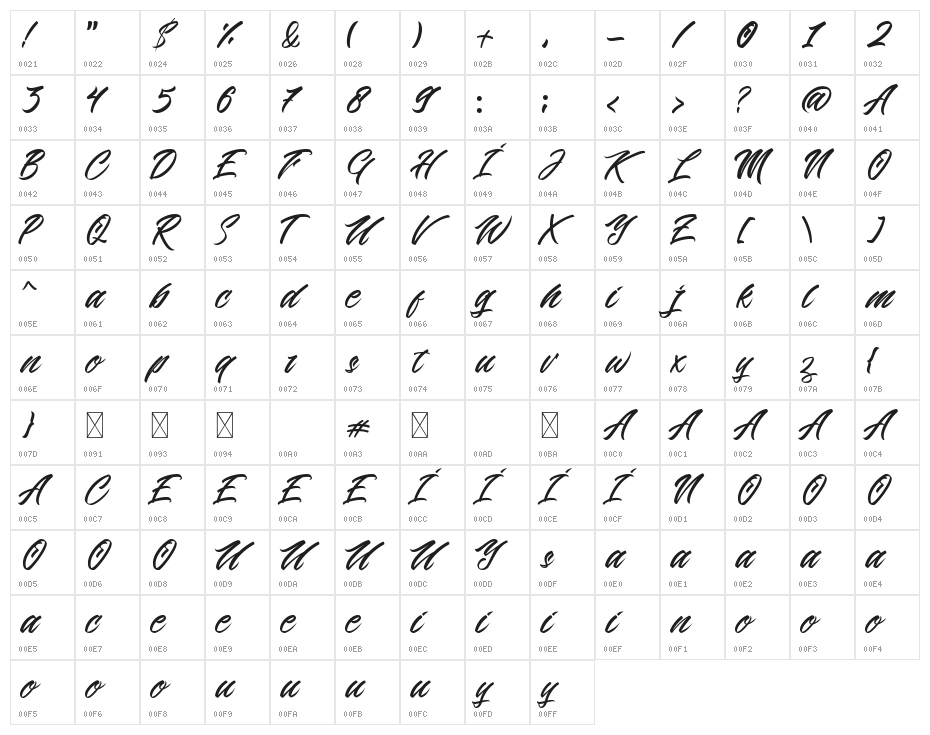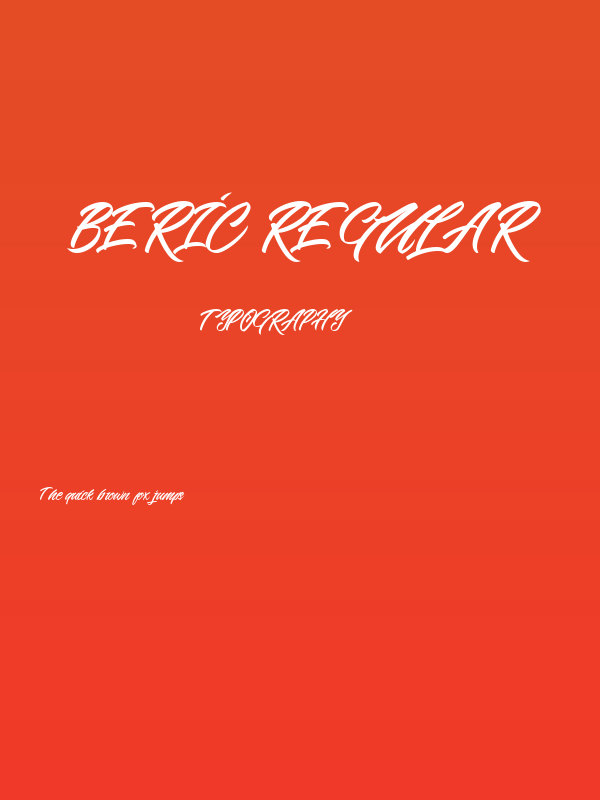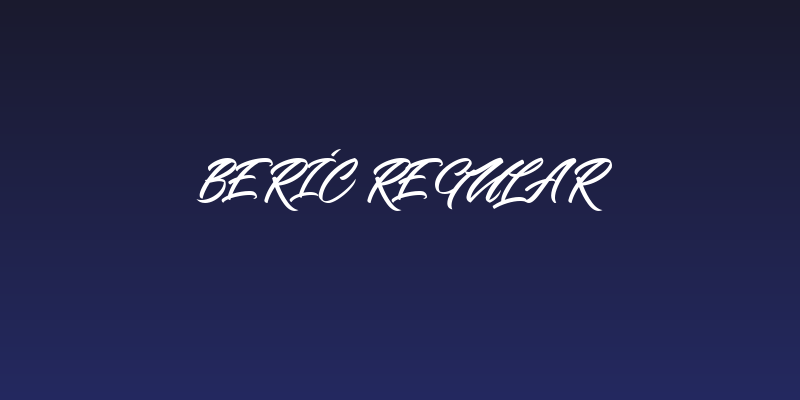
Beric Regular Font
Beric Regular Description
This font features a dynamic and expressive script style, characterized by its fluid, cursive strokes and bold presence. The letters are connected, creating a seamless flow that mimics natural handwriting. The uppercase letters are particularly striking, with dramatic flourishes and loops that add a sense of elegance and movement. The lowercase letters maintain a consistent rhythm, enhancing readability while preserving the artistic flair. Numbers and special characters are designed to complement the overall aesthetic, ensuring a cohesive look across all text elements.
| Use Case | Logos, Headlines, Invitations |
| Proposed Projects | Ideal for branding, invitations, greeting cards, and any project that requires a personal, artistic touch. |